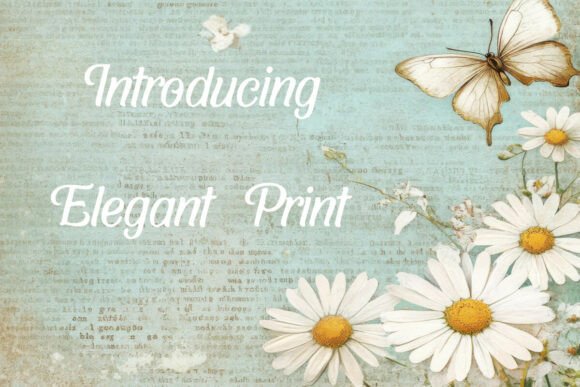
Elegant Print Font: Elevate Your Designs with Sophistication and Charm
In the world of design, the right font can make all the difference. It’s not just about conveying a message; it’s about doing so with style and panache. Introducing “Elegant Print,” a font that effortlessly infuses charm into your design projects. With its smooth contours and refined style, it’s perfect for adorning t-shirts, sprucing up stickers, and contributing an extra dash of elegance to branding materials.
The Versatility of Elegant Print
Ideal for a wide range of applications, Elegant Print is a versatile font that can be used in various creative projects. Whether you’re working on magazine layouts, SVG files, or heartfelt greeting cards, this font carries a personality that’s hard to forget. Its unique style can add an artsy flair to your social media posts, making them stand out in a crowded digital landscape.
Perfect for Cricut Projects and Poster Design
For crafters and designers who love working with Cricut machines, Elegant Print is a fantastic addition to your design toolkit. Its smooth lines and elegant curves make it perfect for cutting and crafting projects that require precision and style. Similarly, if you’re looking to create a poster design that truly stands out, let Elegant Print take the reins. This font is more than just a typeface; it’s a creative tool right at your fingertips.
Experience Elevated Style and Sophistication
Elegant Print Font offers an elevated level of style and sophistication that’s hard to match. Its refined aesthetic makes it perfect for designers and crafters who want to add a touch of elegance to their work. Whether you’re creating branding materials, greeting cards, or social media posts, this font can help you achieve a level of sophistication that’s sure to impress.
Key Features of Elegant Print Font
• Smooth Contours: Elegant Print features smooth contours that give it a refined and elegant look.
• Versatile: This font is perfect for a wide range of applications, from magazine layouts to social media posts.
• Perfect for Cricut Projects: Elegant Print is ideal for Cricut projects, offering precision and style.
• Elegant Style: This font carries a personality that’s hard to forget, making it perfect for designers and crafters who want to add a touch of elegance to their work.
• Use it for Headings and Titles: Elegant Print is perfect for headings and titles, adding a touch of elegance and sophistication to your designs.
In conclusion, Elegant Print Font is a versatile and elegant typeface that’s perfect for designers and crafters who want to add a touch of sophistication to their work. With its smooth contours and refined style, it’s ideal for a wide range of applications, from magazine layouts to social media posts. Whether you’re working on Cricut projects or creating poster designs, Elegant Print is a creative tool that’s sure to elevate your designs to the next level.